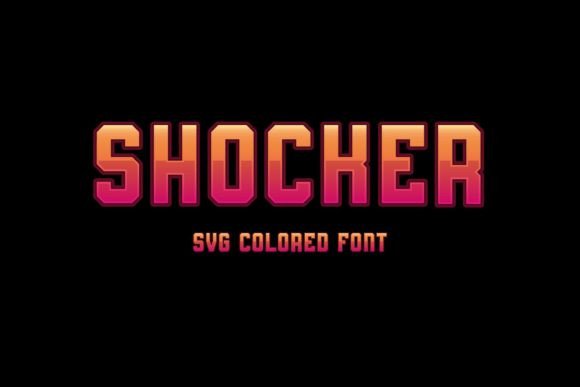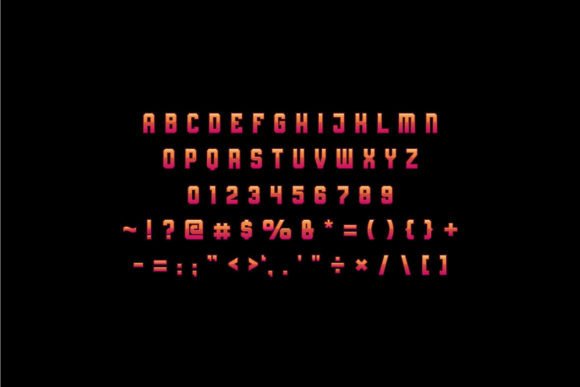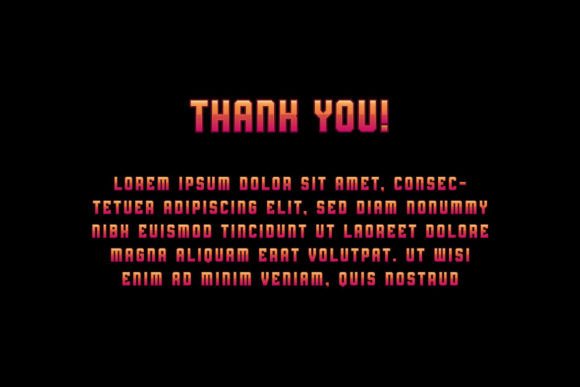
Shocker Font
About Shocker Font
Shocker is an incredibly cool and fun color font that packs a punch. With its modern and trendy style, this font is guaranteed to leave a lasting impact on your designs.
Designed to catch the eye, Shocker is perfect for projects that require a bold and energetic look. Whether you’re creating eye-catching posters, attention-grabbing social media graphics, or designing for a cutting-edge event, this font will make a statement.
Shocker’s vibrant colors and dynamic letterforms exude a sense of excitement and playfulness. The font’s edgy and contemporary style gives it a fresh and youthful appeal, making it an ideal choice for projects that aim to capture attention and stand out from the crowd.
This font is versatile and can be used across various mediums, including digital designs, prints, merchandise, and more. Its impact is not limited to a specific niche, allowing you to explore its potential in different creative endeavors.
Embrace the coolness and fun of Shocker to inject energy into your designs. Let its modern and trendy style elevate your projects and make a memorable impact. Whether you’re a graphic designer, marketer, or simply someone looking to add a unique touch to their creations, Shocker is the font that will bring your ideas to life with a bang.